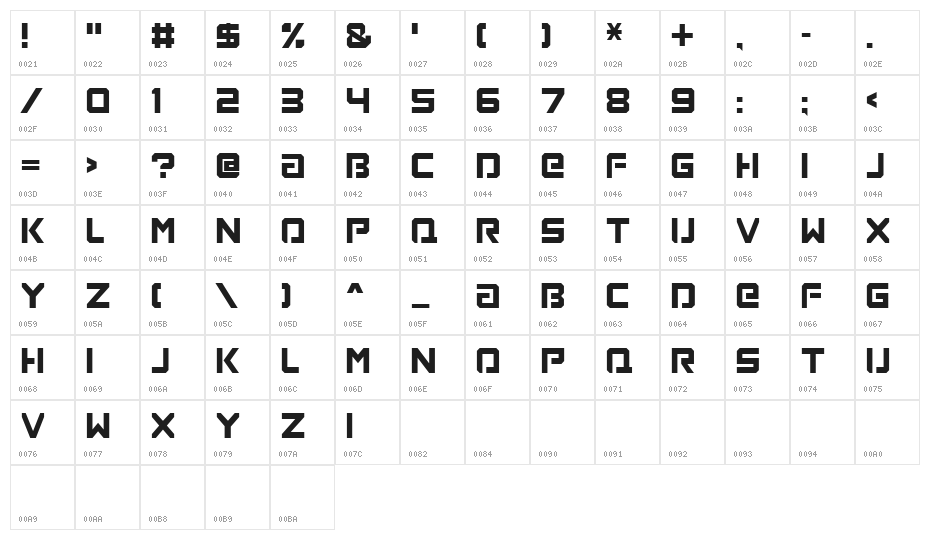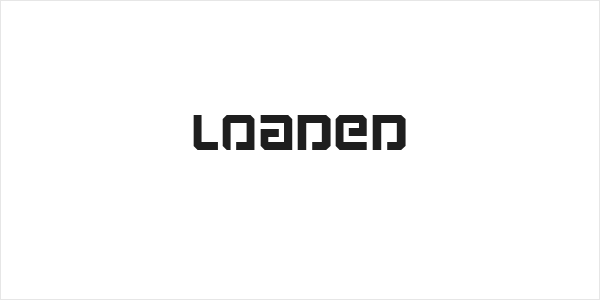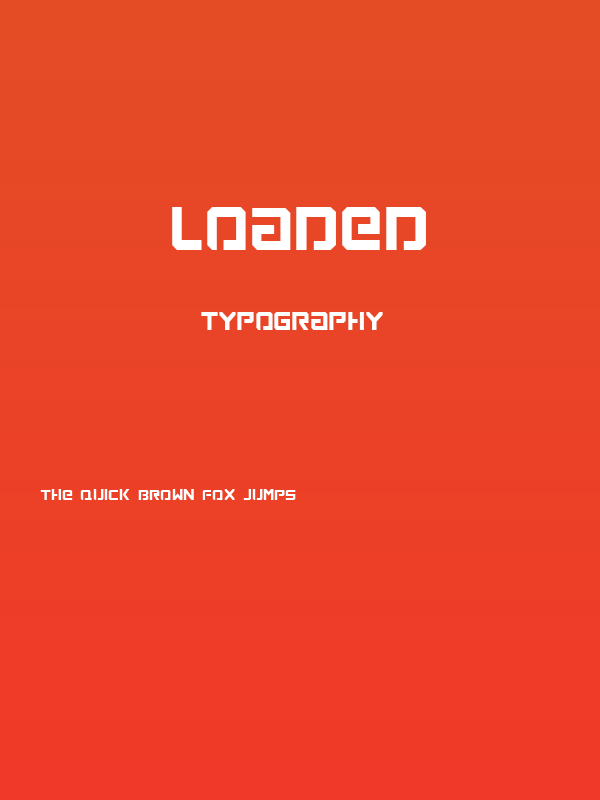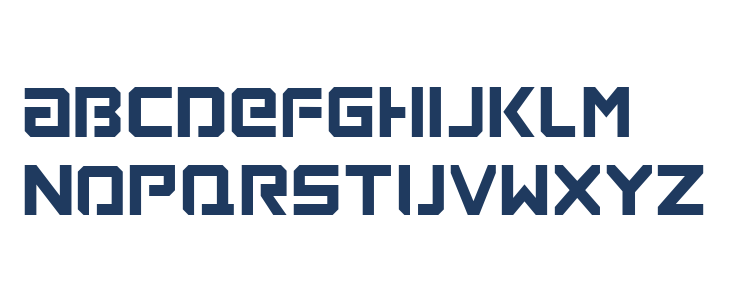
Loaded Font
✎ Futuristic
Loaded Description
This font features a bold, geometric design with a futuristic and industrial aesthetic. The characters are constructed with sharp angles and straight lines, giving them a blocky appearance. The uppercase and lowercase letters maintain a consistent style, with minimal variation in stroke width, contributing to a uniform look. The numerals and special characters follow the same design principles, ensuring cohesion across all glyphs. This font's strong presence and distinctive style make it suitable for attention-grabbing applications.
| Proposed Projects | Ideal for sci-fi themed projects, video game titles, technology branding, and posters. |